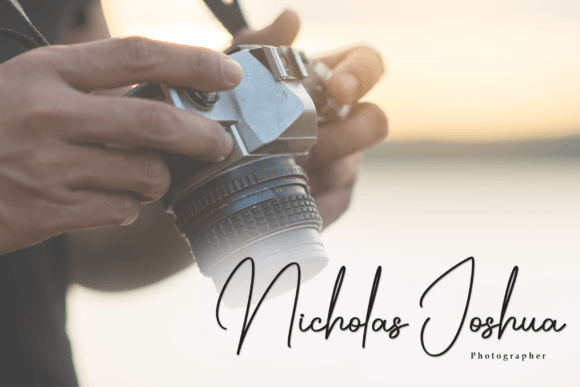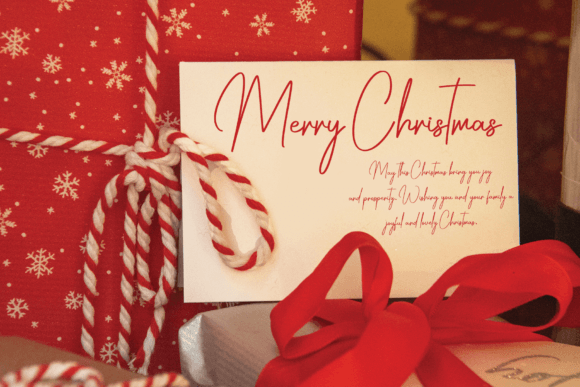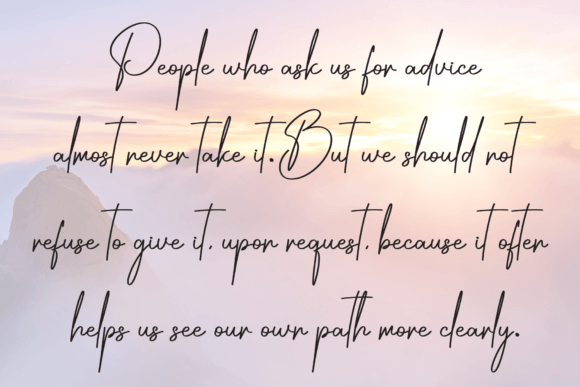
September Signature Font
September Signature is a signature font that’s easy to read, and simple, but still with that handwritten feel. It’s perfect for greeting cards, magazines, headers, social media, wedding invitations, labels, photography, watermarks, invitations, stationery, and any project that requires taste handwriting.